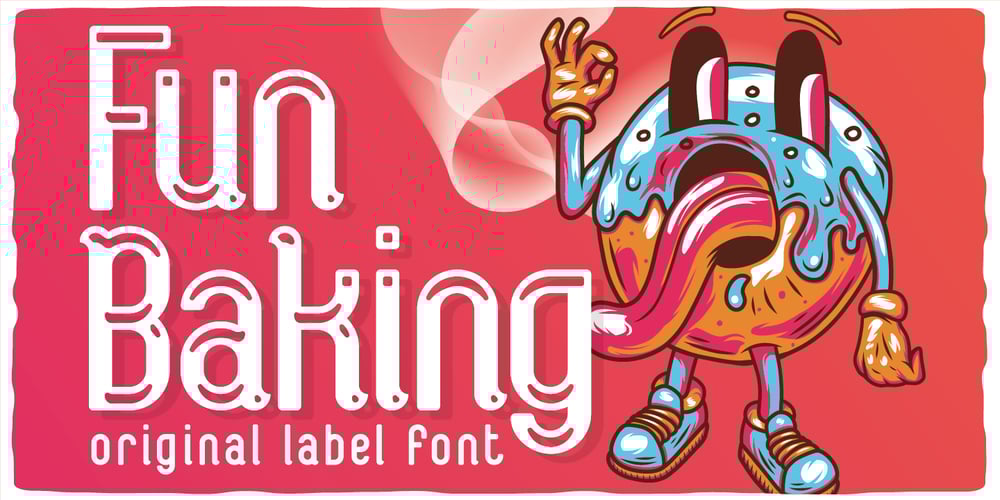
Fun Baking Font Family was designed by Oleg Voznyy and published by Vozzy. Fun Baking contains 7 styles and family package options. Introducing a vintage look label font named Fun Baking. All available characters you can see at the screenshot. This font have 7 styles – Regular, Outline, Texture, Shine, Shine FX, Outline FX and Texture FX. This funny style font will good viewed on any retro design like poster, t-shirt, label, logo etc.